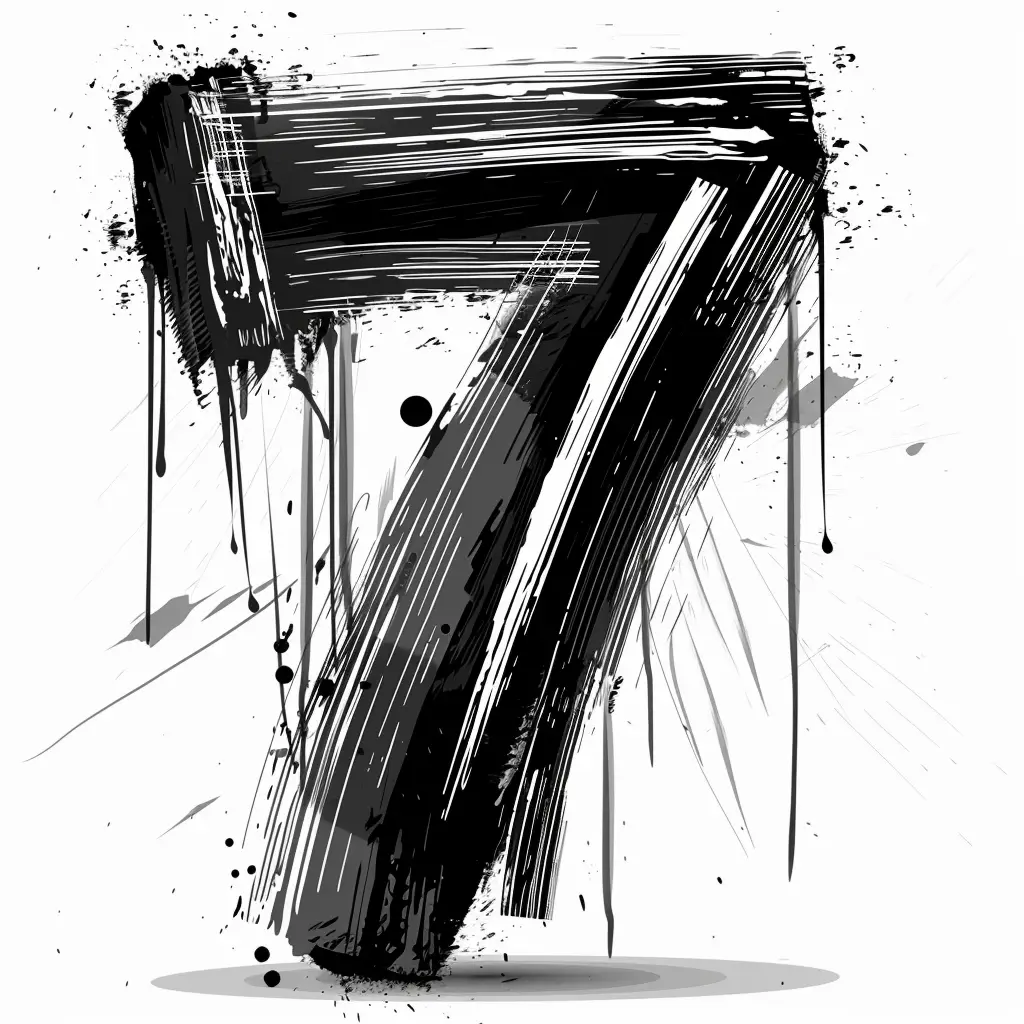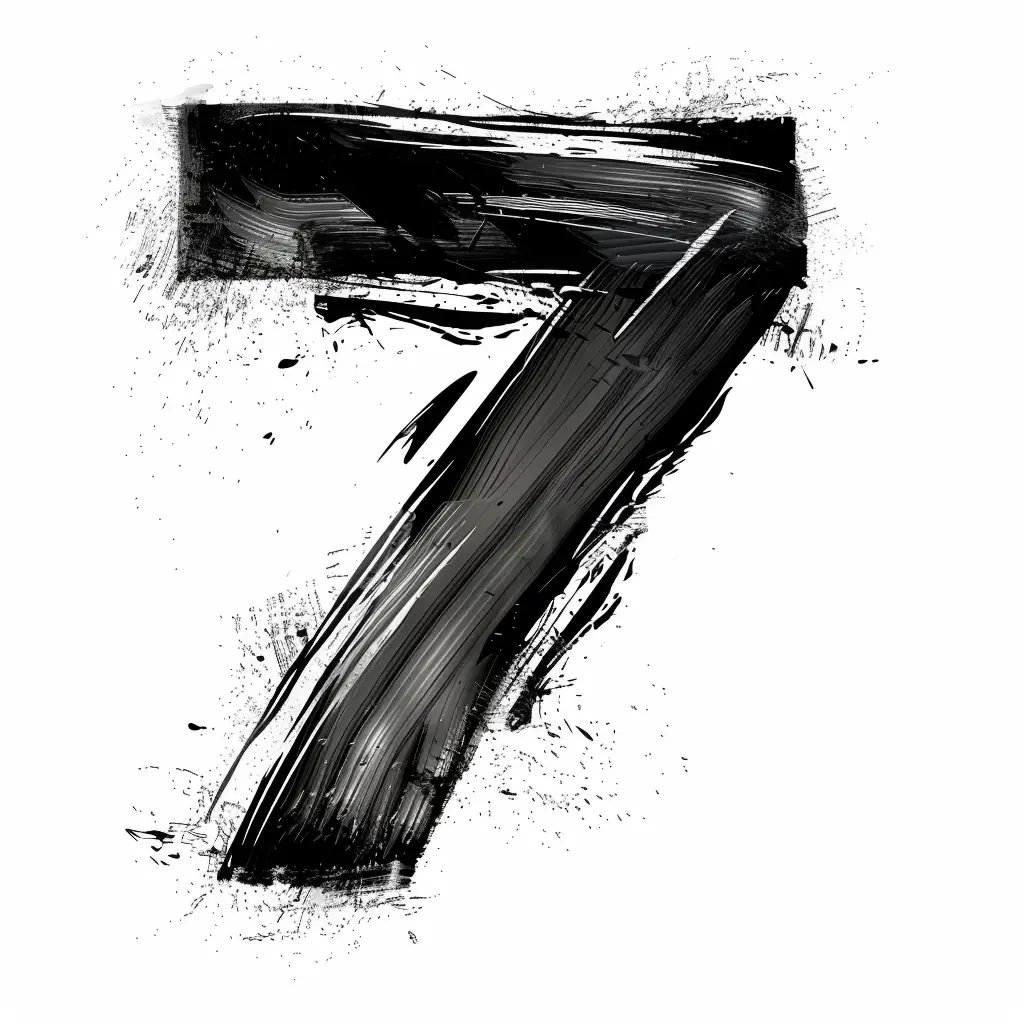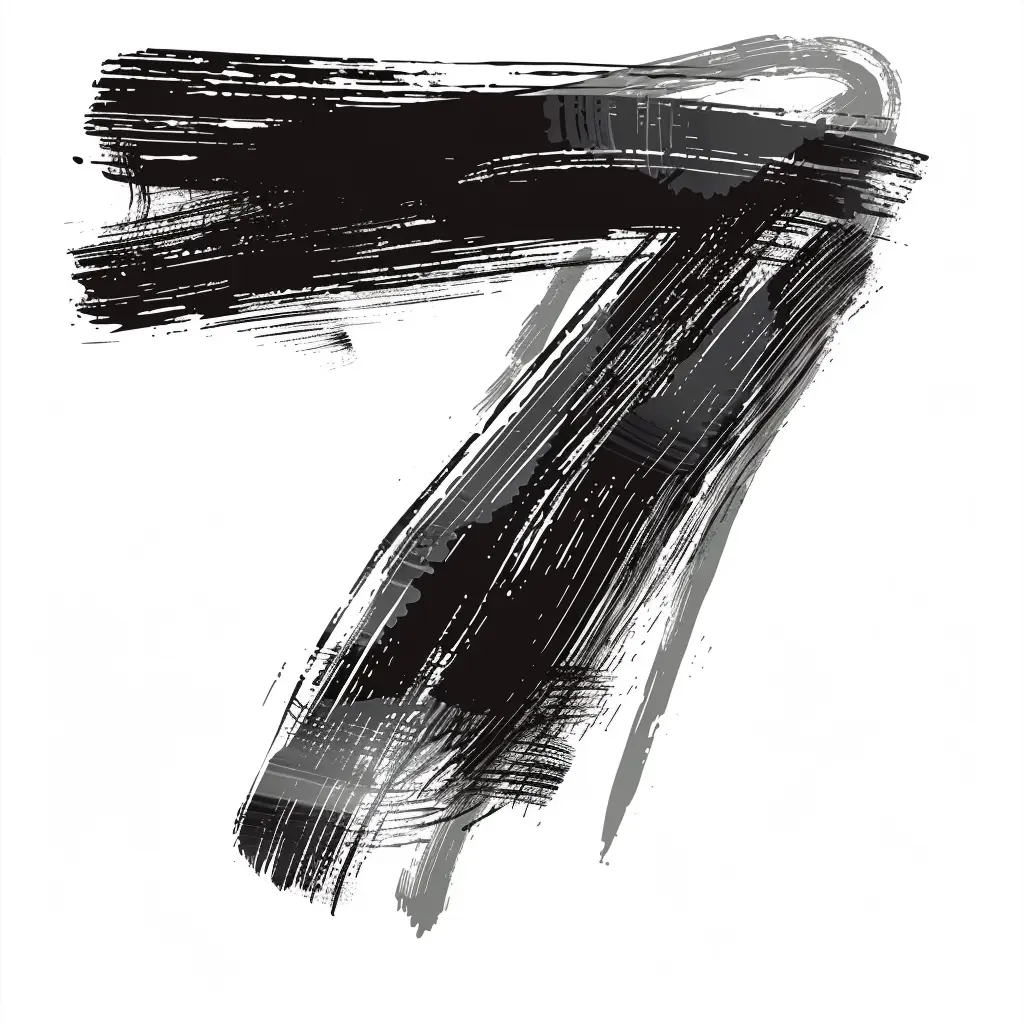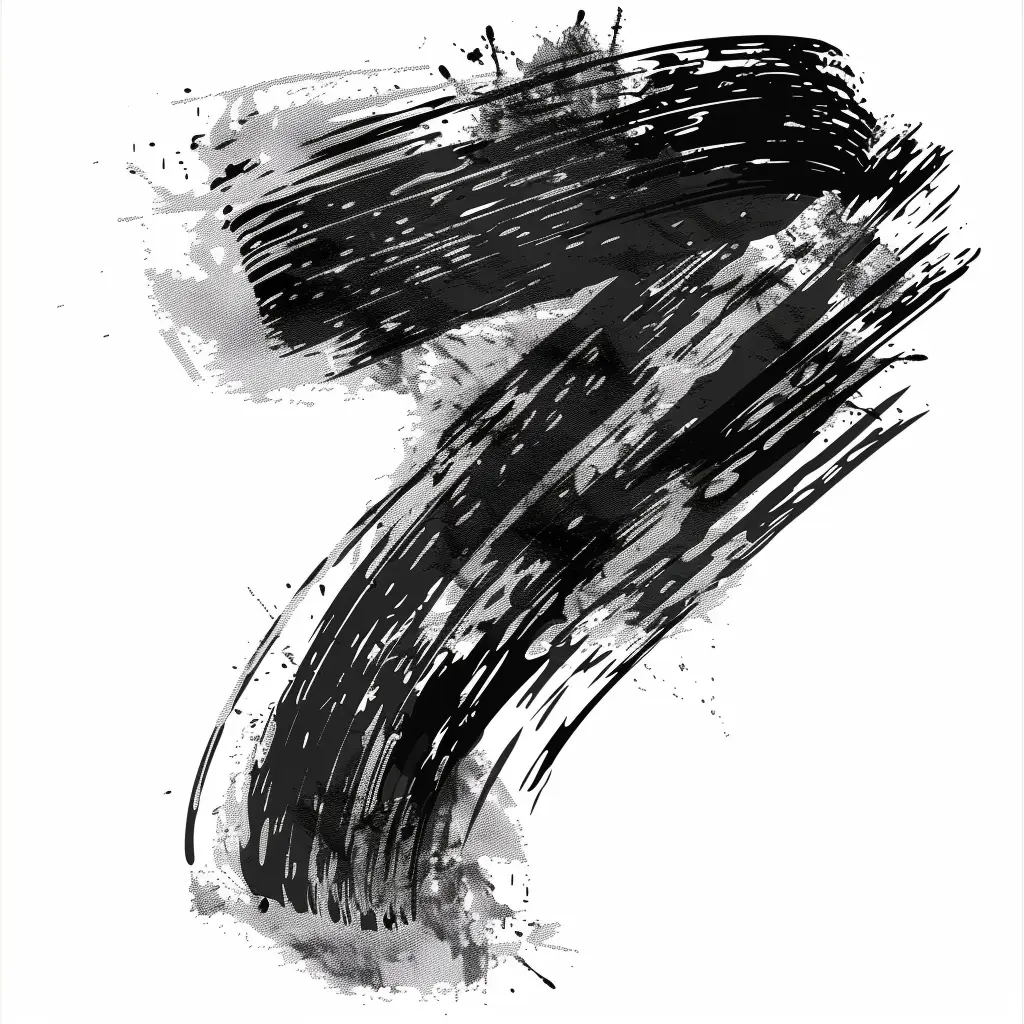
The image features a stylized, hand-painted representation of the number 7, rendered with bold, textured brushstrokes. The design uses a monochromatic palette of black and varying shades of gray, creating a dynamic, artistic effect with visible brush marks and layered strokes. The number’s form is defined by thick, sweeping lines and subtle shading, giving it a rough, expressive, and slightly abstract appearance.